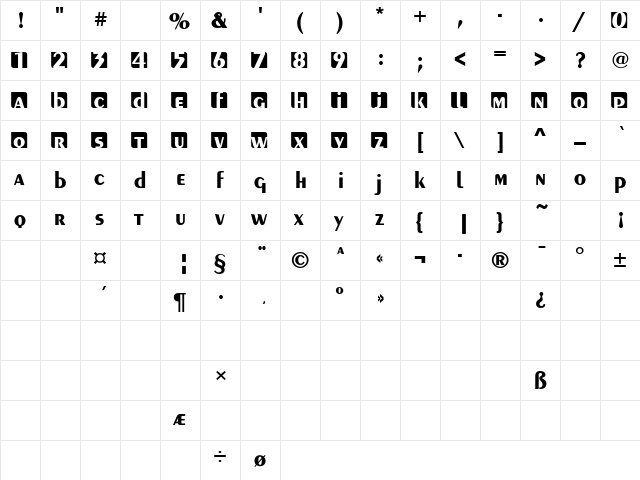
PeignotIniD Bold
Design Context for PeignotIniD Typeface
PeignotIniD takes a measured approach to typography — its balanced proportions and neutral character make it a reliable workhorse for both digital and print work. The heavy weight commands attention and anchors typographic hierarchies.